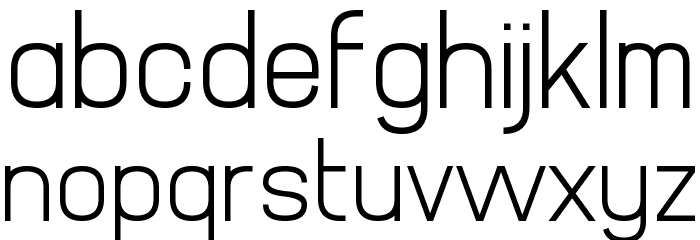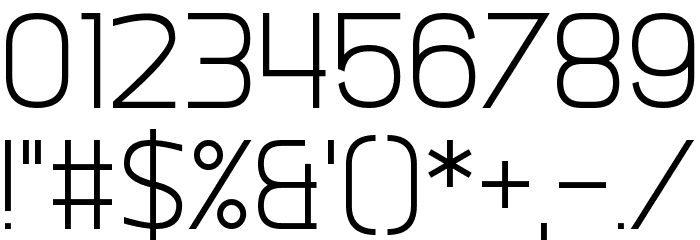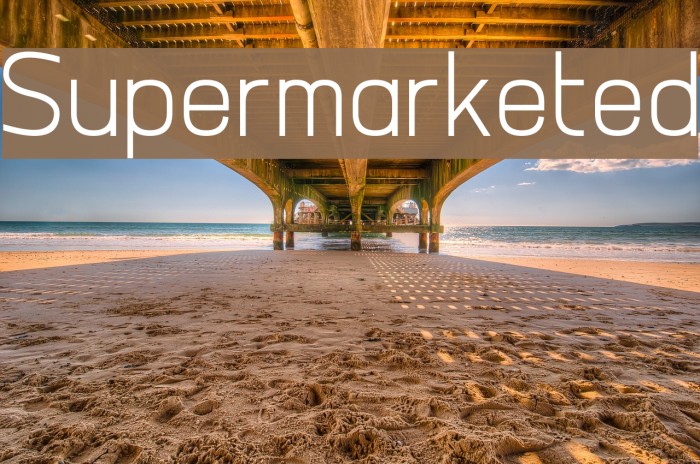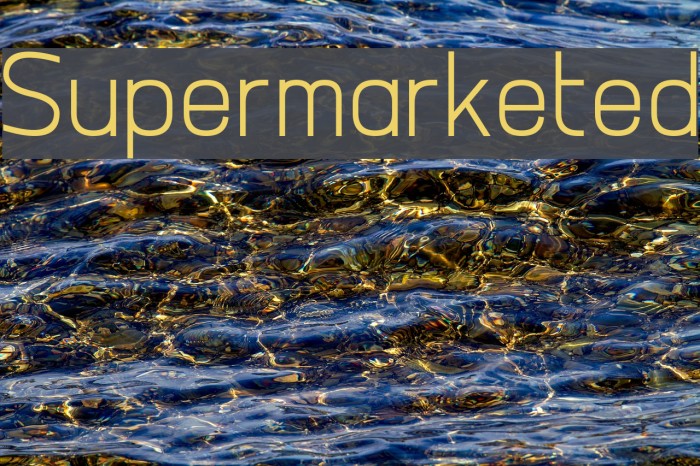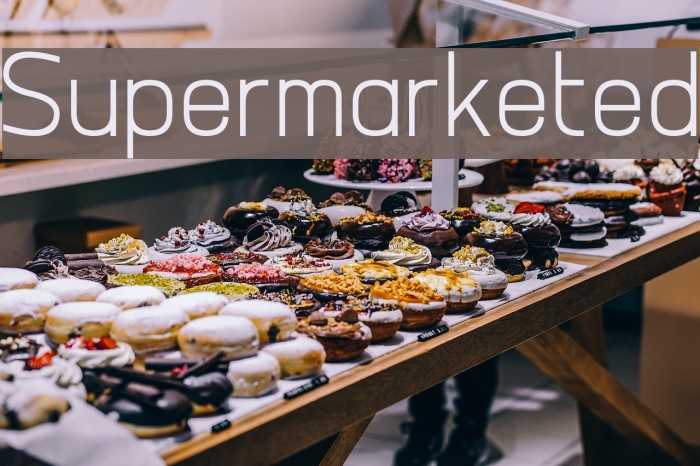
Supermarketed Font
This font features a clean and modern design with a geometric structure. The characters are uniform in width, providing a balanced and harmonious appearance. The uppercase letters are bold and assertive, while the lowercase letters maintain a consistent height, enhancing readability. The numerals are clear and distinct, making them suitable for various applications. Special characters are well-defined, adding versatility to the font. The overall style is sleek and contemporary, making it ideal for digital and print media.
A modern, geometric font with clean lines and balanced proportions.
- Proposed Projects: Ideal for branding, web design, advertising, and editorial layouts.